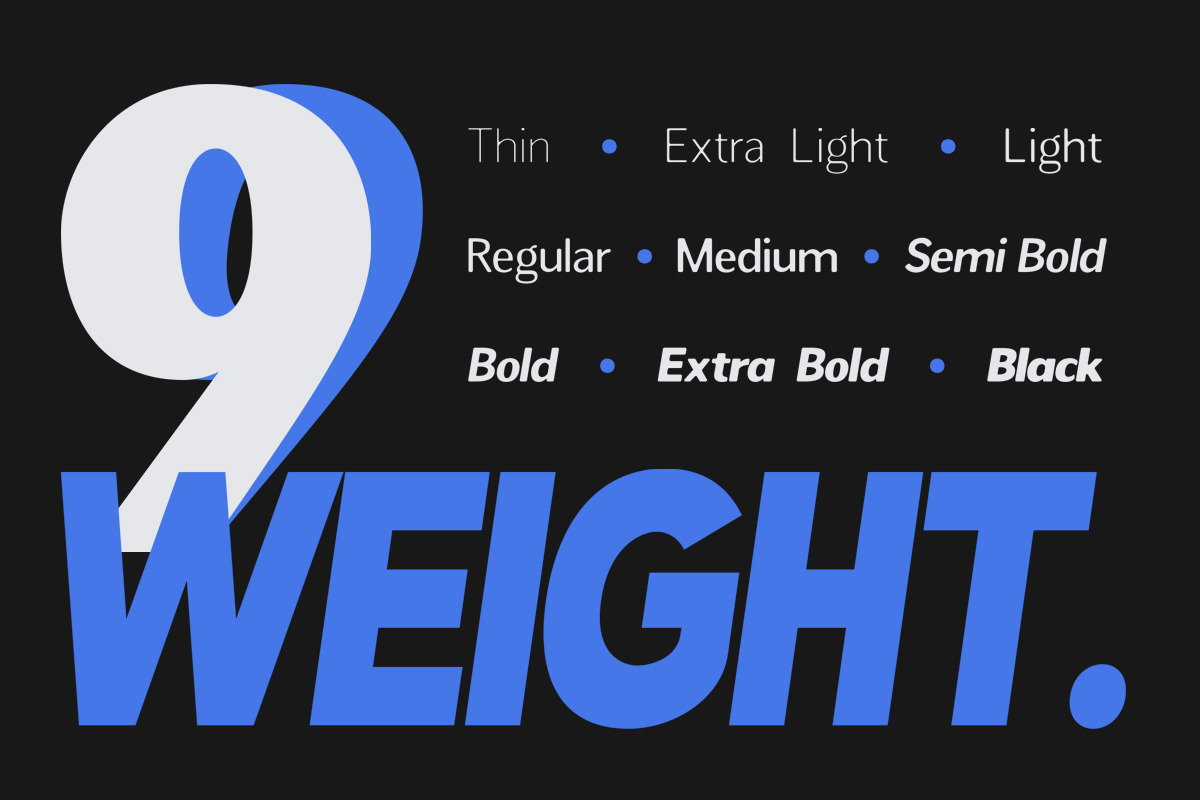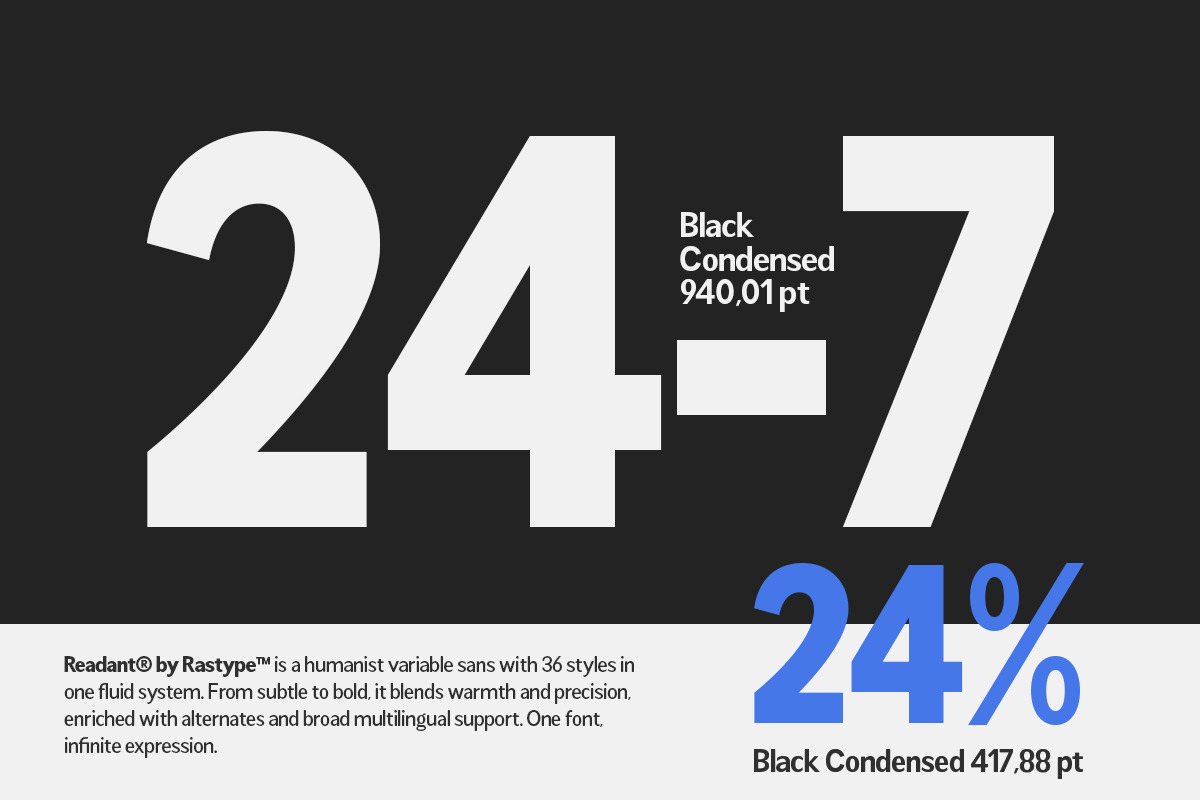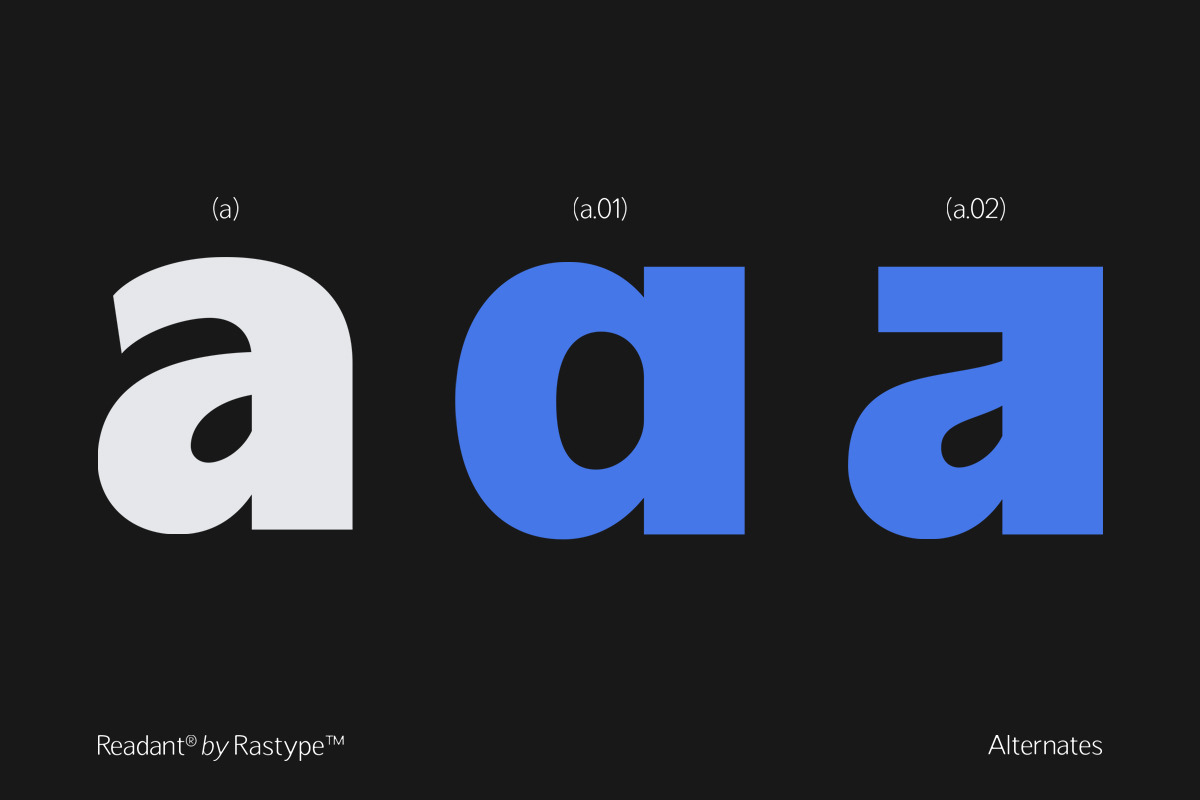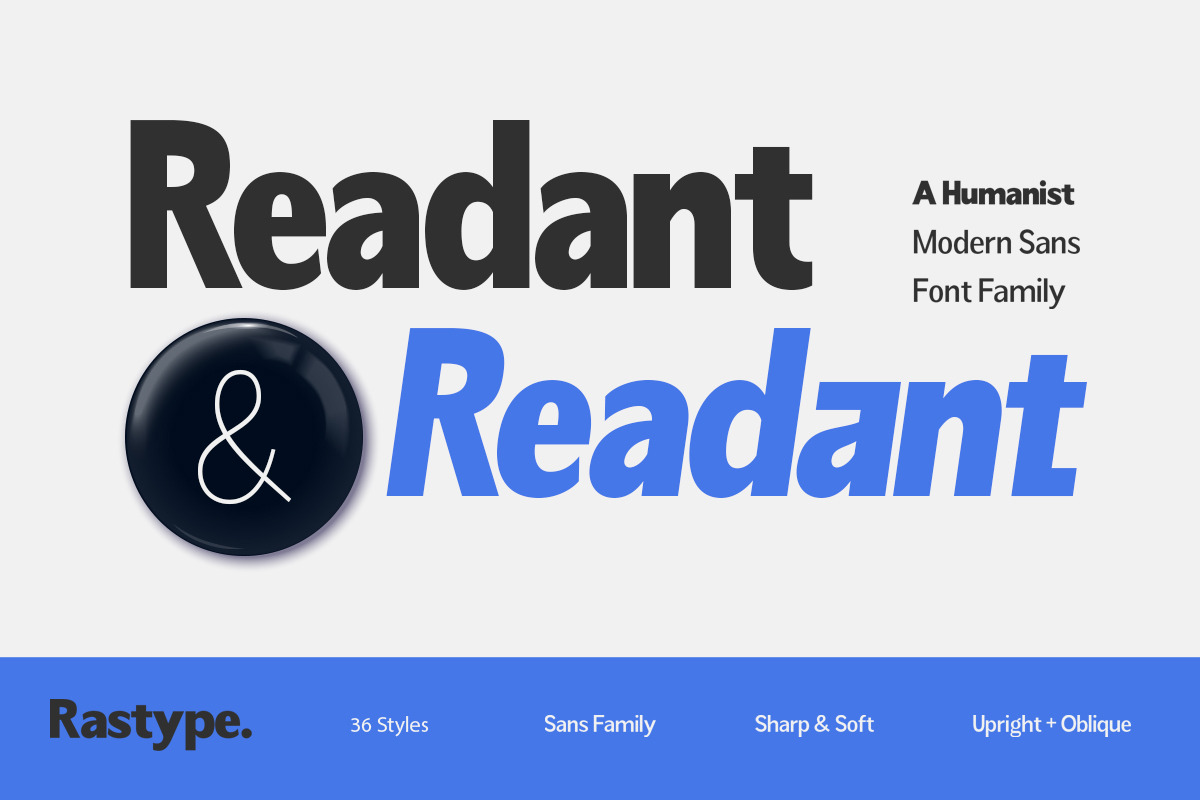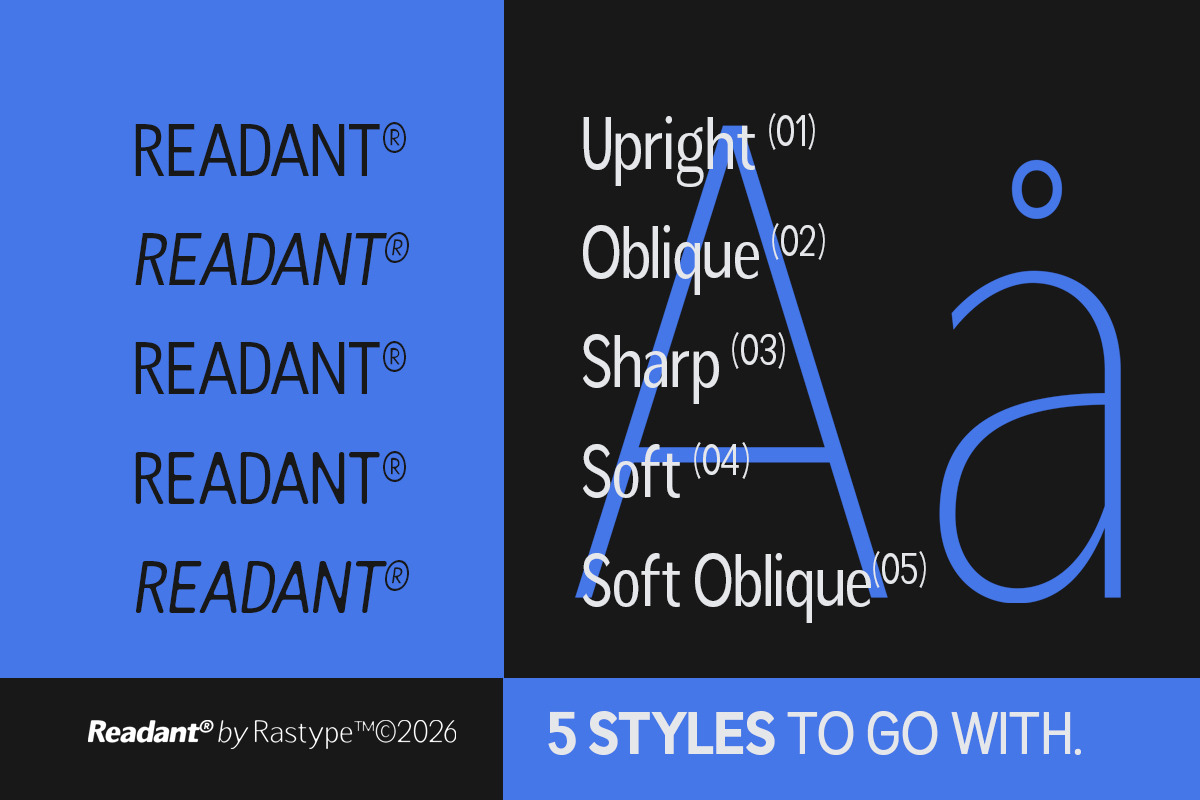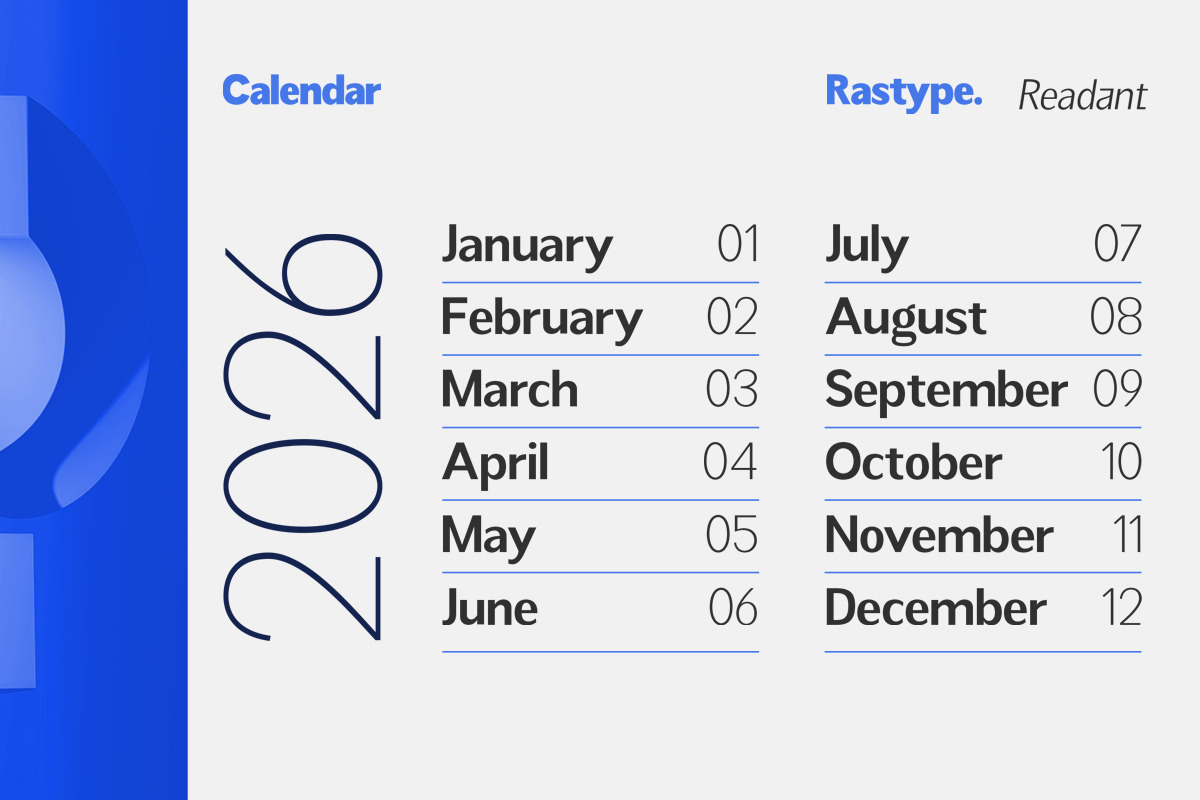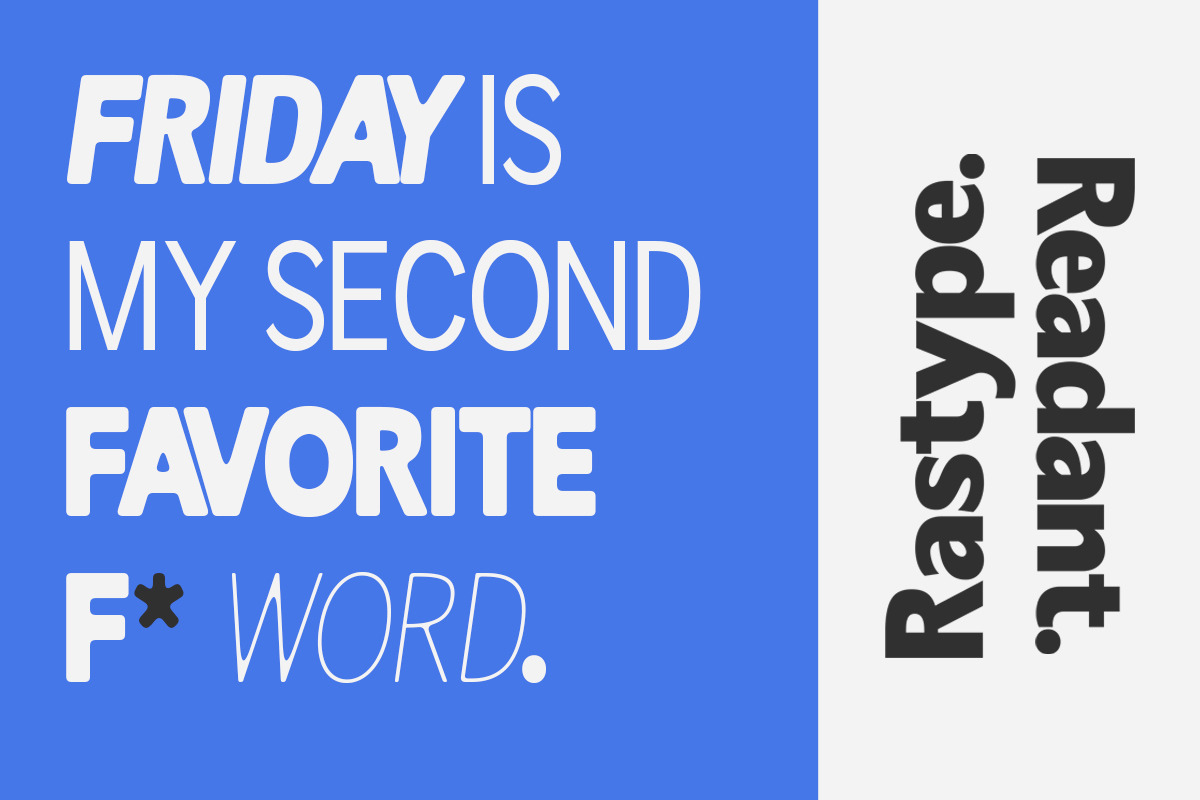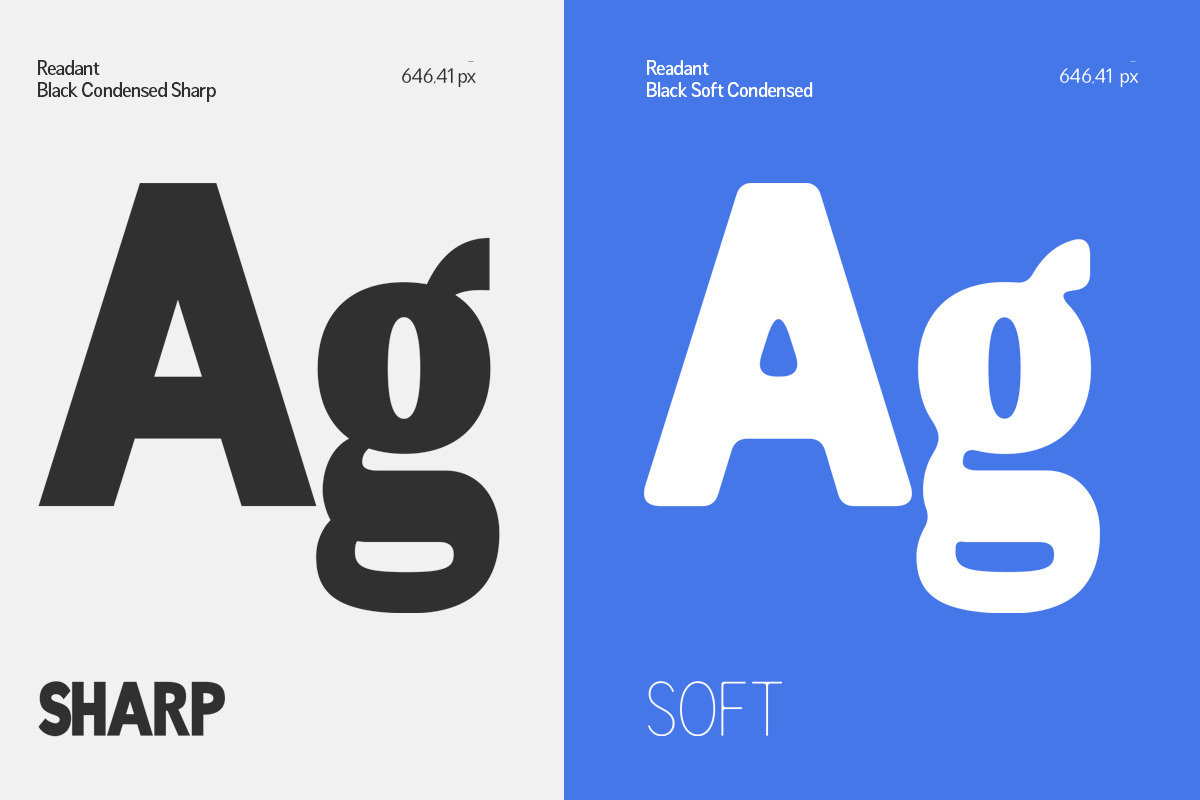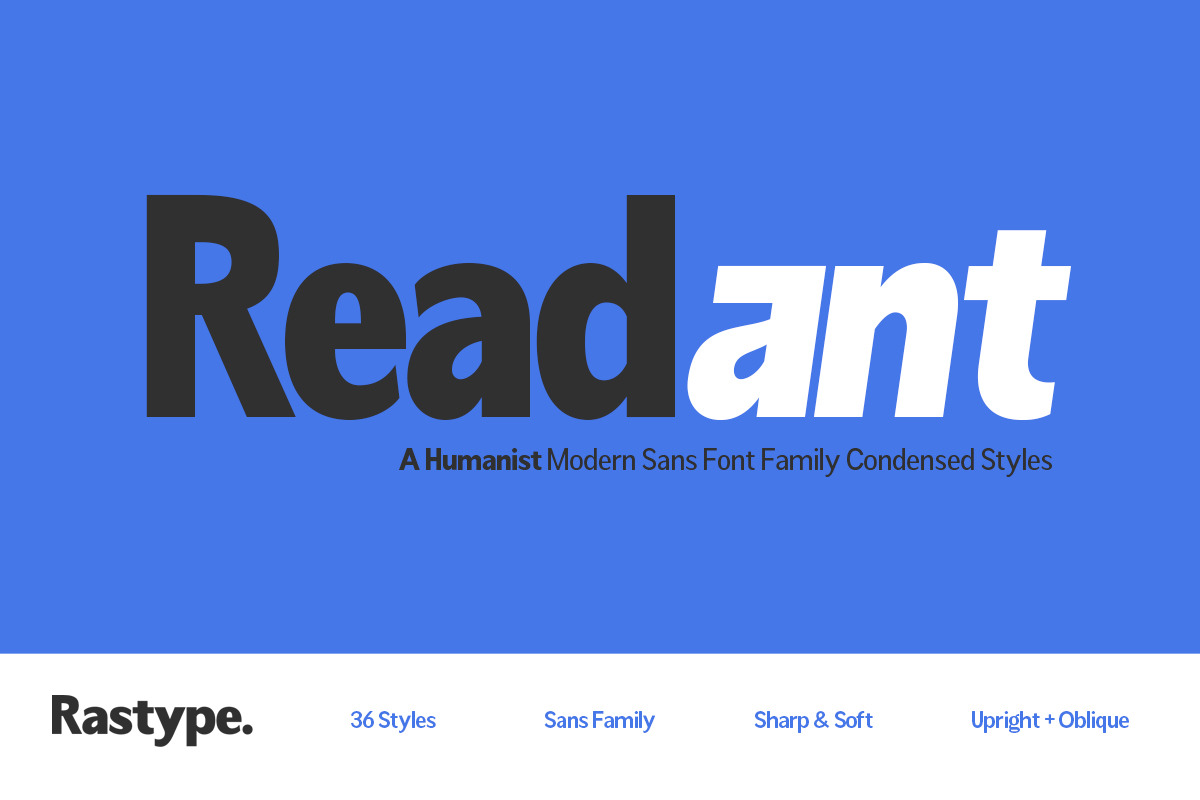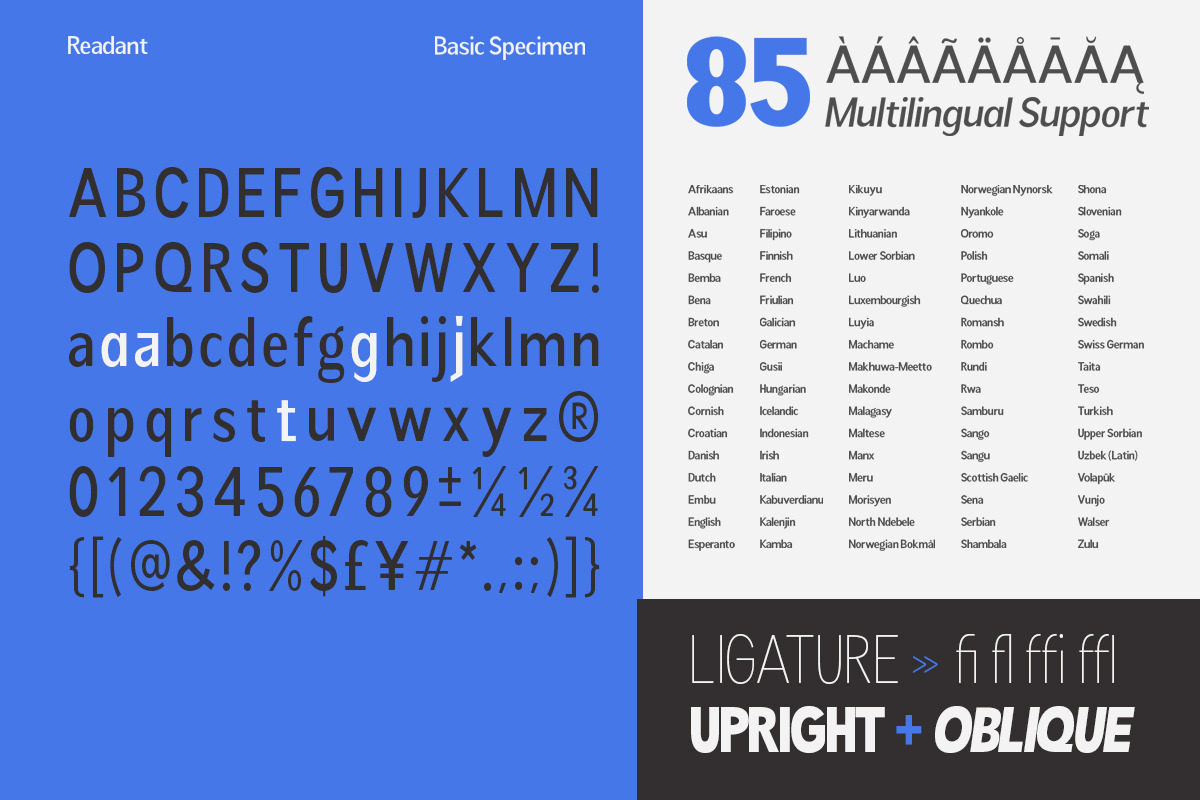
Readant Condensed - Family Font
Readant Condensed is a contemporary humanist sans serif font family that balances clarity, warmth, and versatility. Designed with refined proportions and open letterforms, Readant delivers excellent readability across print and digital environments. Its clean structure is softened by subtle humanist curves, creating a friendly yet professional tone suitable for branding, editorial layouts, UI design, advertising, and corporate communication.
With 36 styles including Upright and Oblique variants, Readant offers a comprehensive range of weights and widths, allowing designers to build strong typographic hierarchies with ease. From bold headlines to refined body text, this modern sans family adapts effortlessly to creative and commercial projects alike. Carefully engineered spacing, balanced contrast, and sharp yet smooth detailing give Readant its distinctive personality — sharp when you need precision, soft when you need approachability.